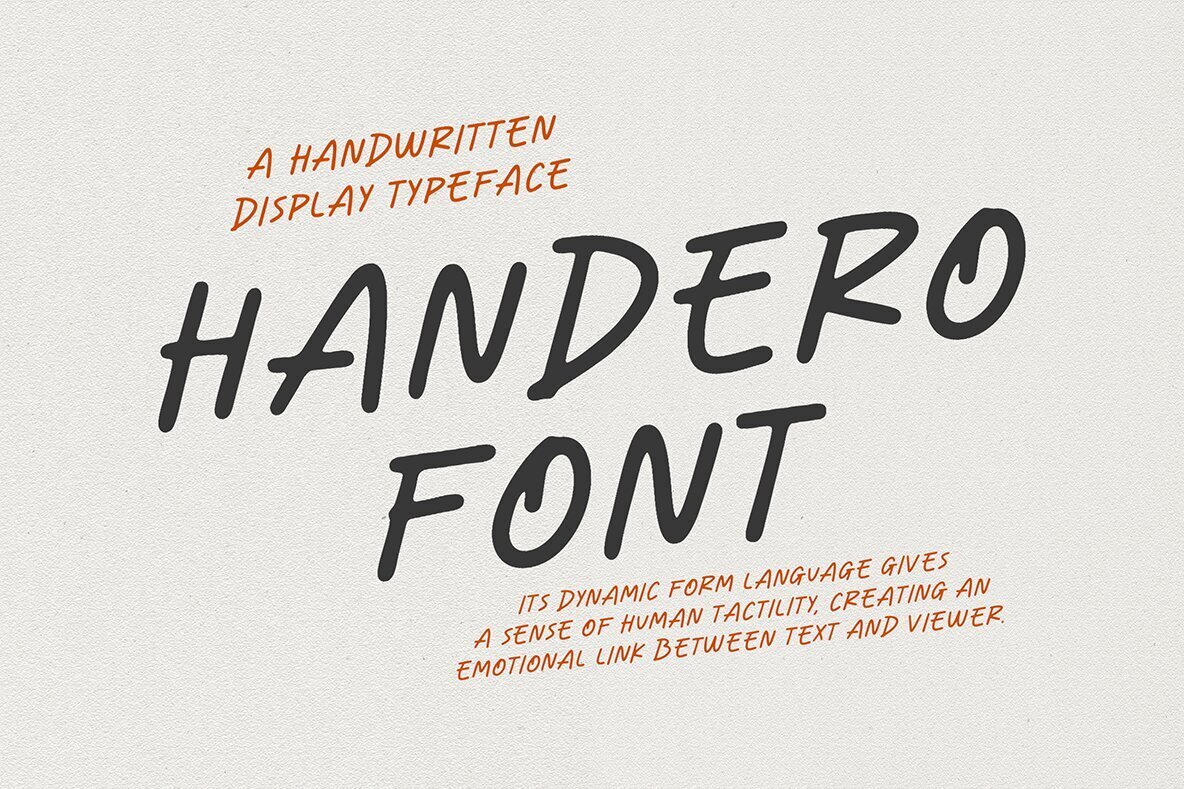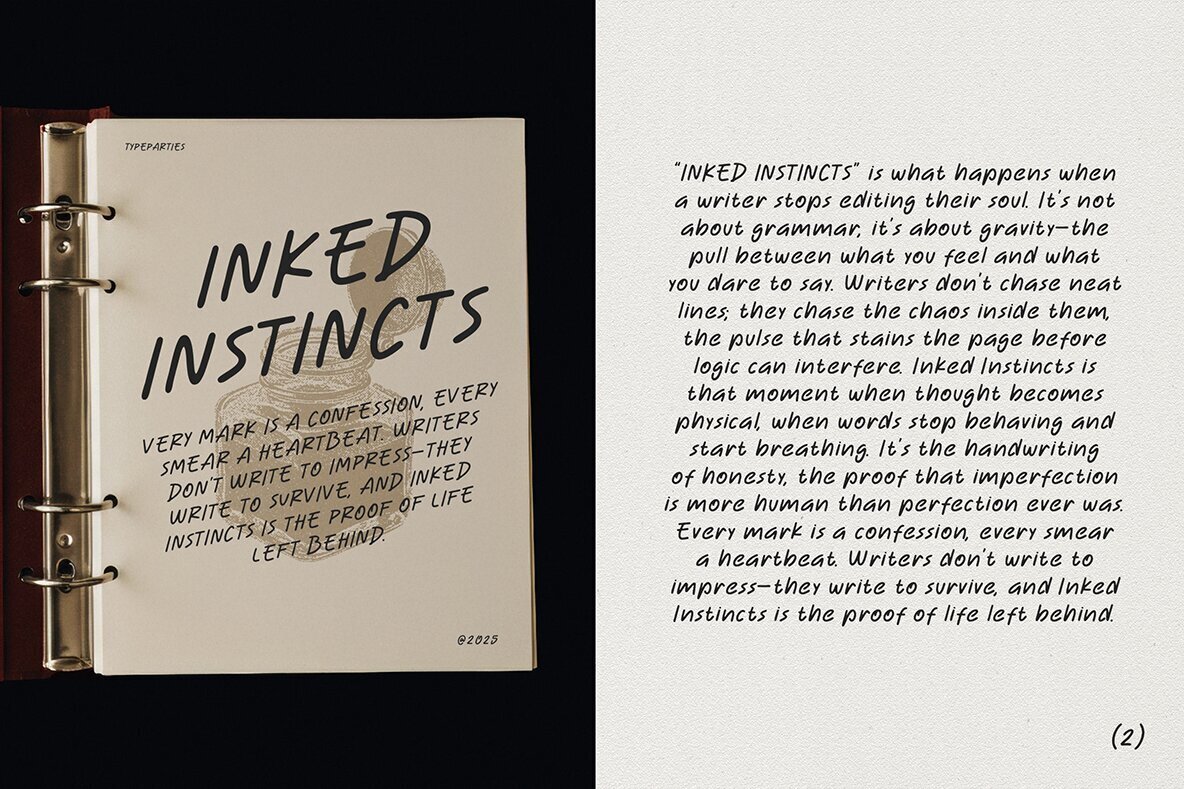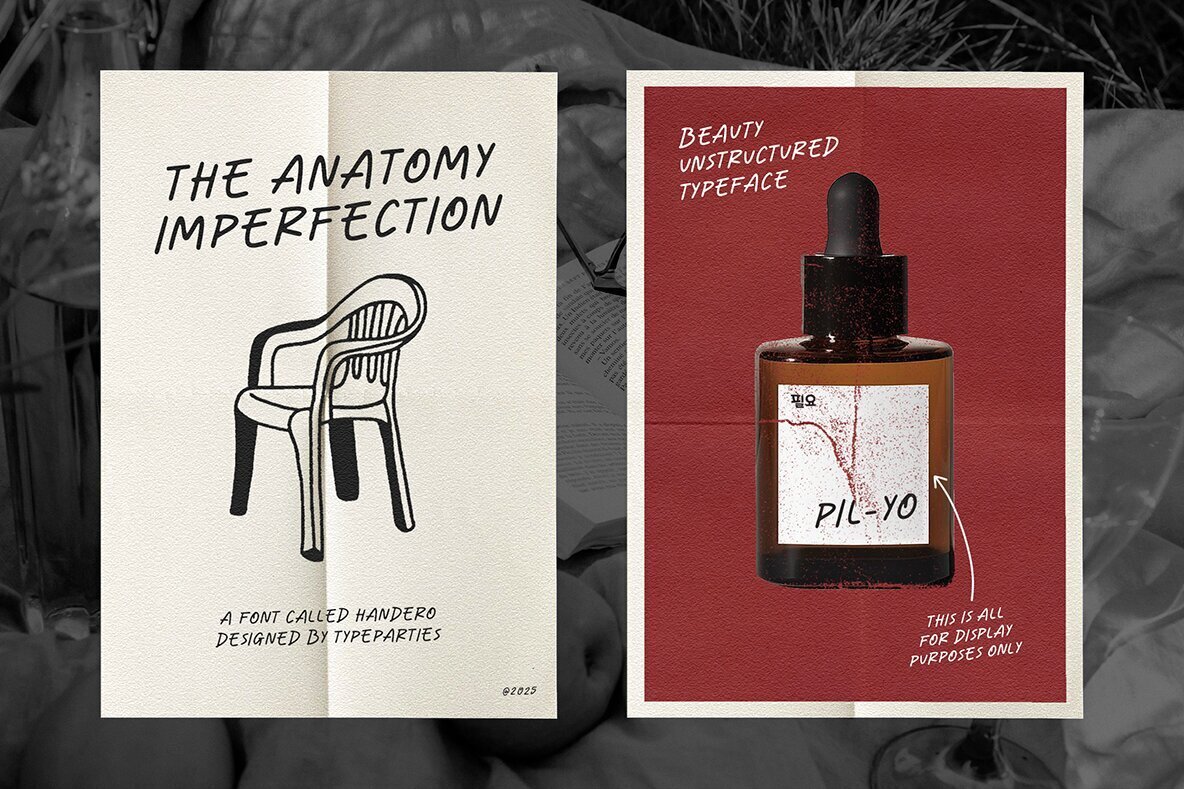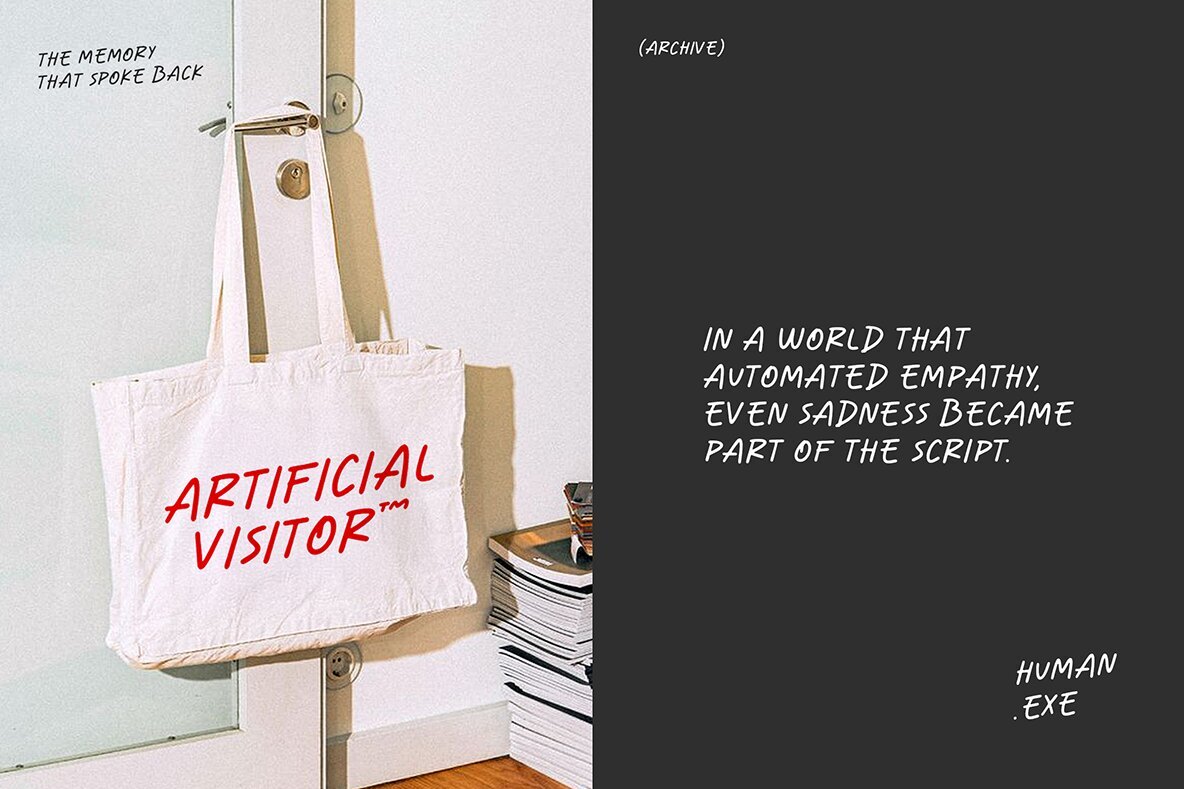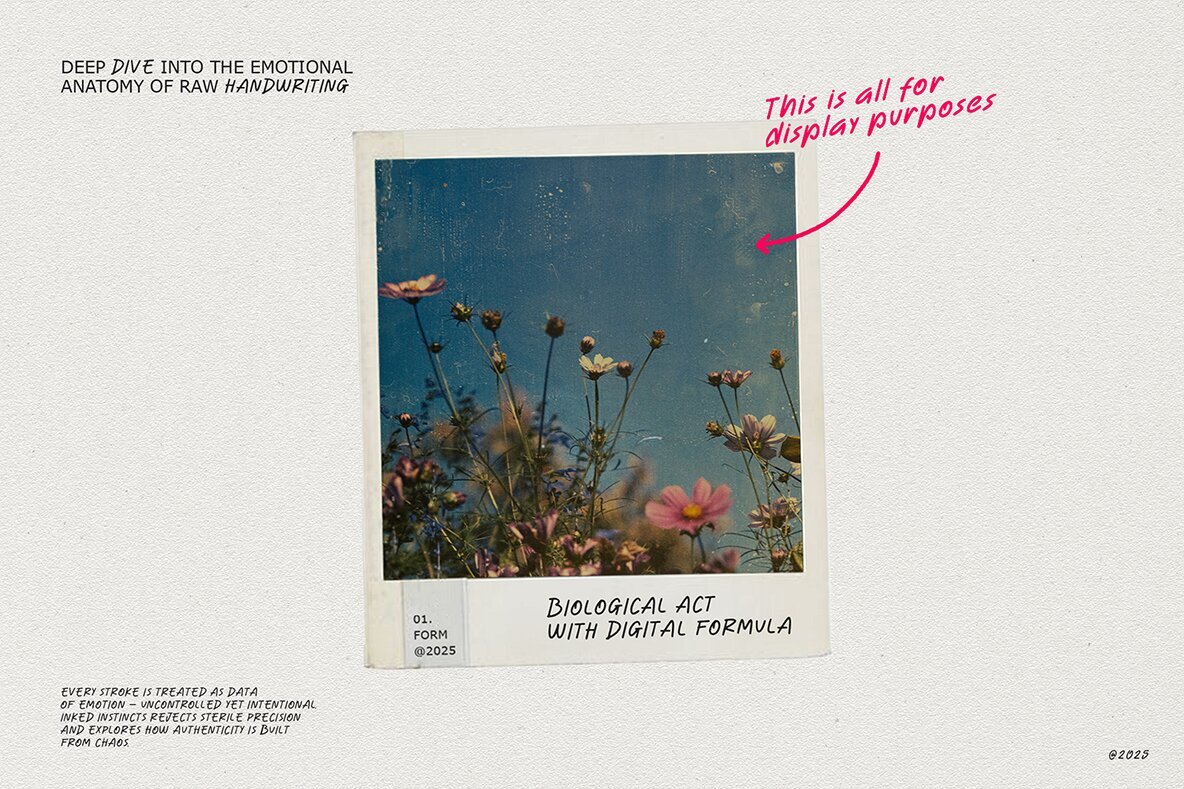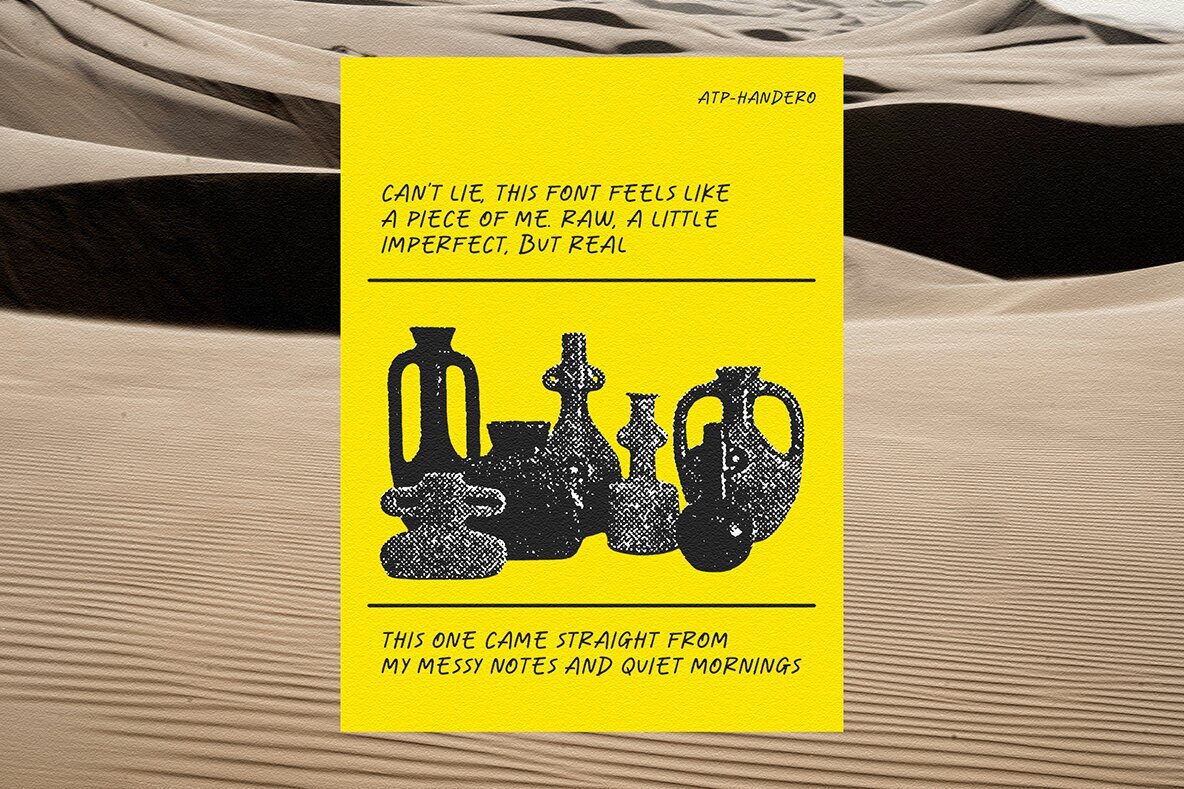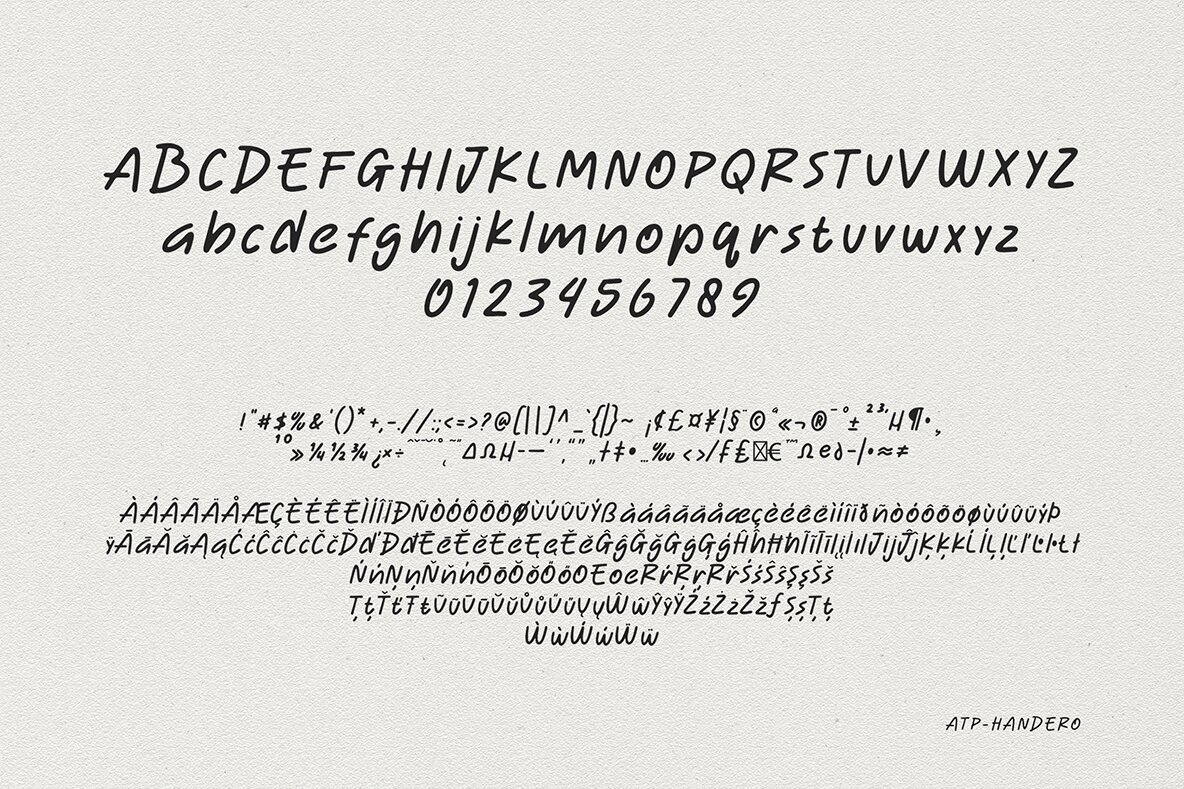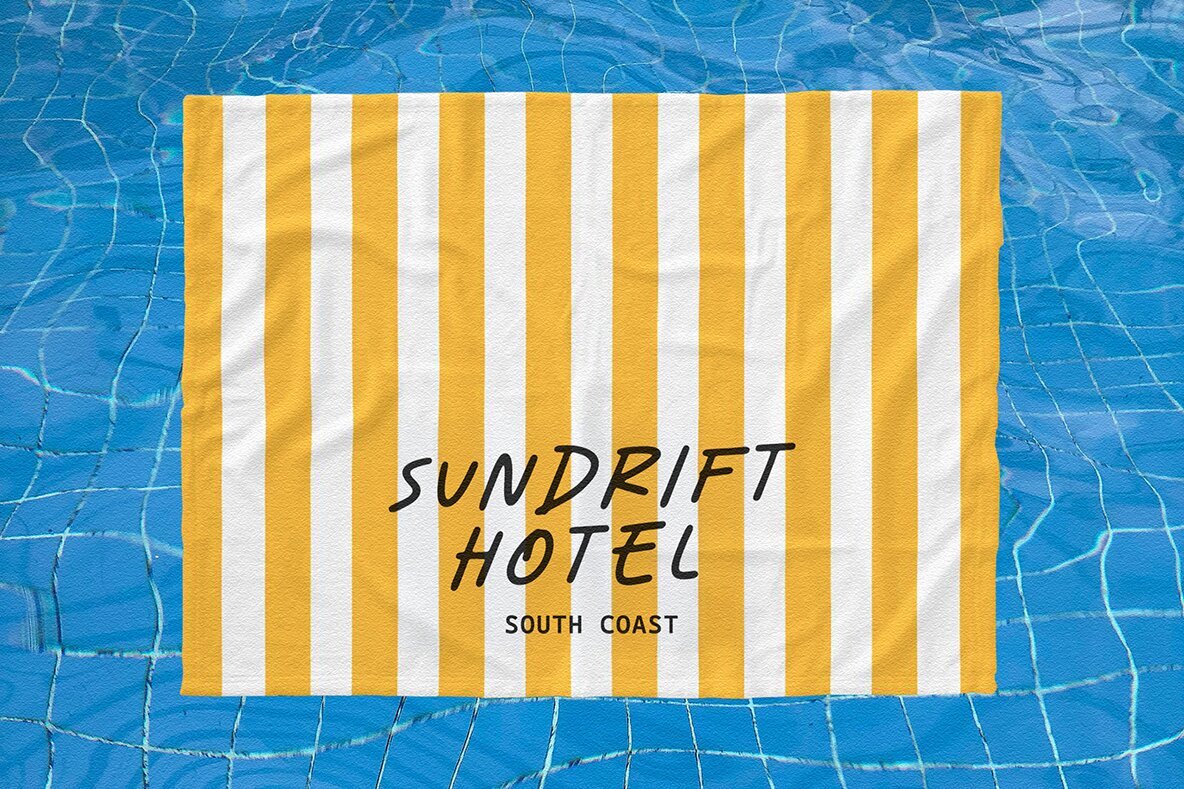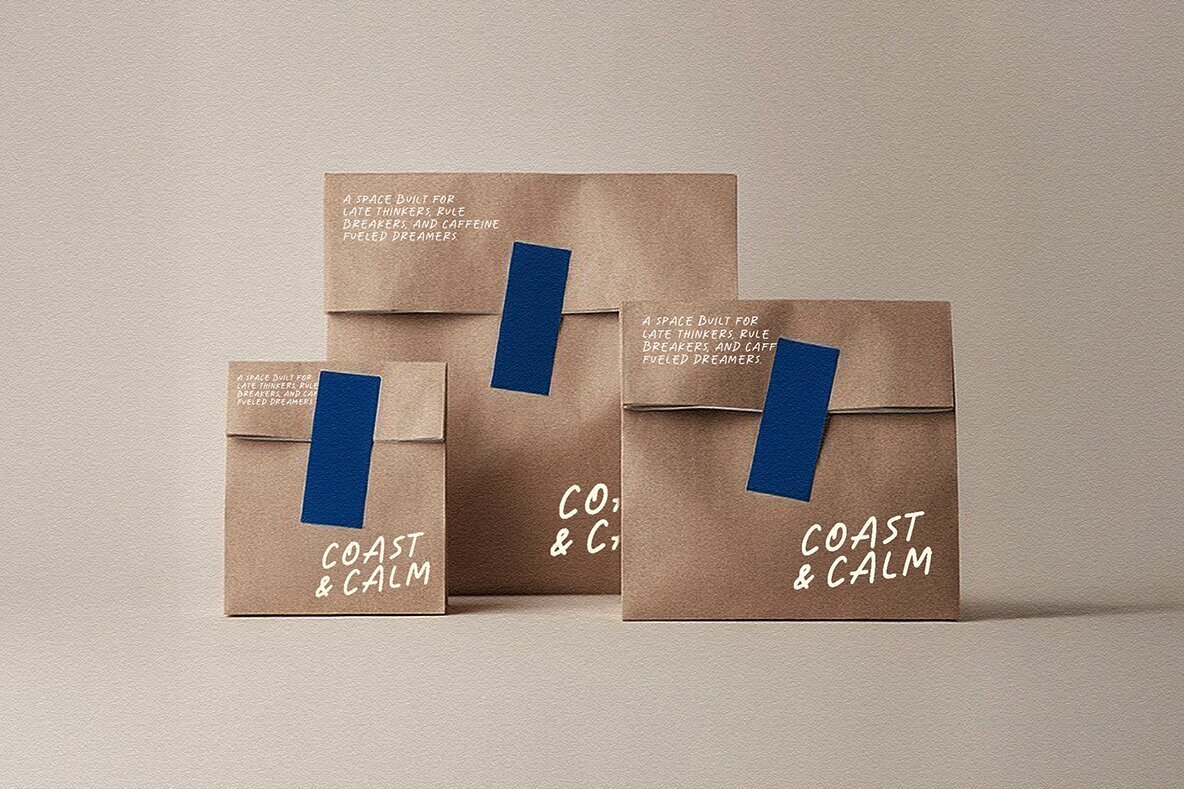
Handero Font
ATP Handero Regular
The Handero font captures the authentic movement of handwritten notes, translating the raw immediacy and quiet energy of early creative moments into a versatile typeface. Its uneven lines and dynamic rhythm lend a sense of warmth and genuine personality, making it ideal for design projects seeking a natural, human element. Handero resonates in personal branding, packaging, and visuals that call for individuality and character. This typeface avoids artificial perfection, instead providing a textured, approachable visual language.Handero: Expressive Handwritten Font With Distinct Character